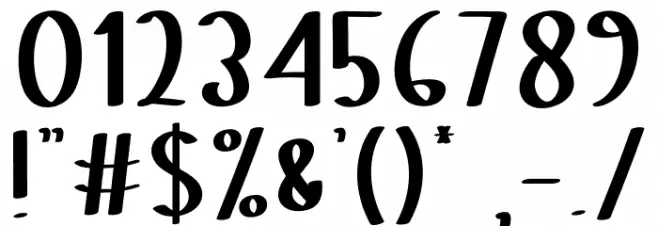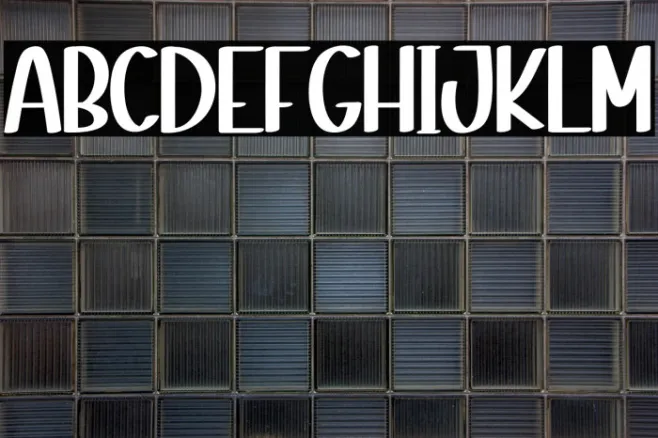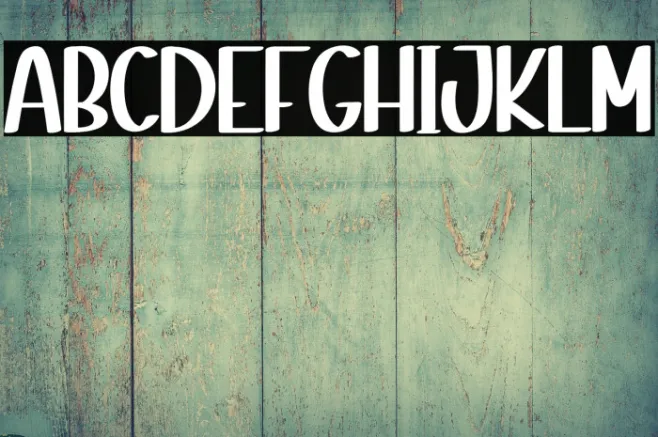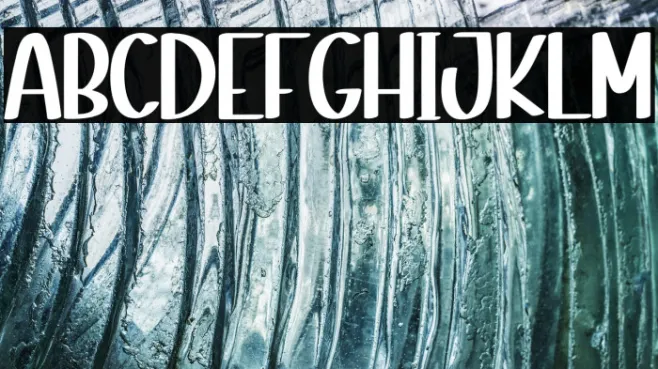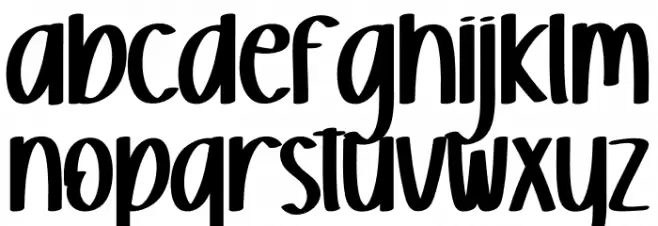
Sweety Milkys Font
Sweety Milkys Description
This playful and bold font features a handwritten style with a whimsical touch. The characters are rounded and slightly condensed, giving a friendly and approachable feel. The strokes are consistent in weight, providing a uniform appearance across all characters. The uppercase and lowercase letters maintain a cohesive style, with the lowercase letters slightly more playful in their curves. The numbers and special characters are designed to match the overall aesthetic, ensuring a harmonious look. This font is perfect for projects that require a fun and lively vibe.
A playful, bold handwritten font with a whimsical and friendly style.
- Font: Sweety Milkys
- Proposed Projects: Ideal for children's books, playful branding, greeting cards, and social media graphics.
- Category: Handwritten
- Overall Style: Playful